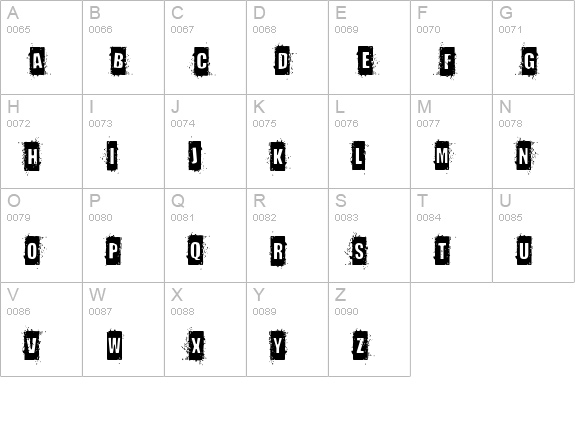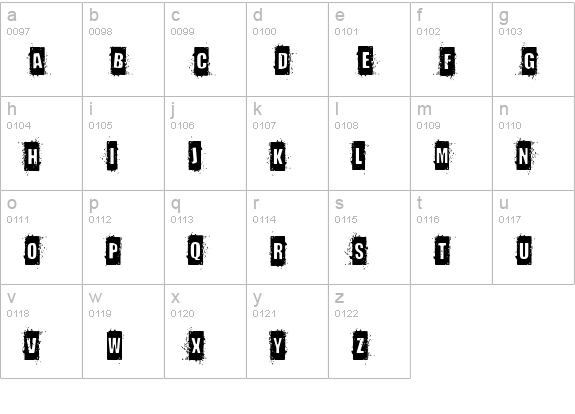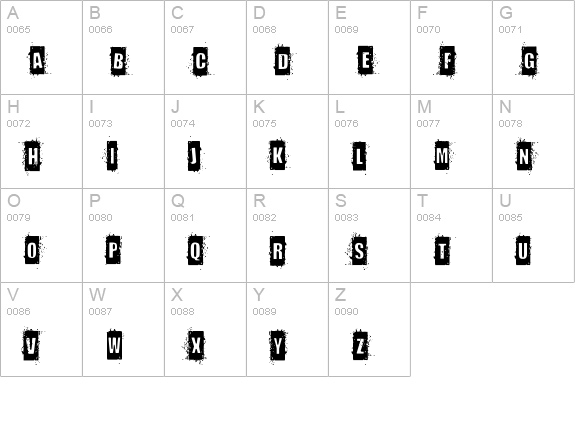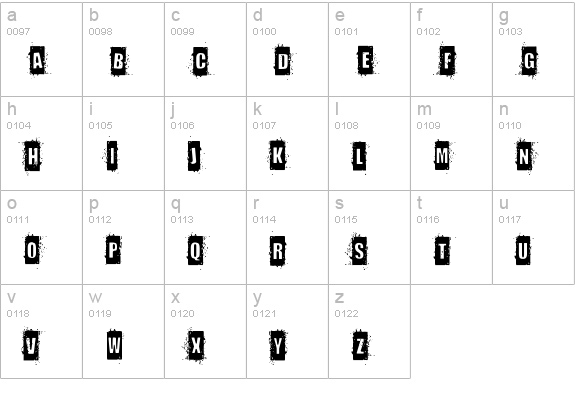
Distort You A Lesson Font Details
Distort You A Lesson font is a unique and eye-catching typeface that will add a touch of creativity to your designs. With its distorted and edgy look, this font is perfect for making a statement or adding a modern twist to your projects. The irregular shapes and uneven lines give Distort You A Lesson font a playful and dynamic appearance that is sure to grab attention. What's even better is that this font is available for free at FontsMarket.com! You can easily download and use it in your personal or commercial projects without any cost. Whether you're working on posters, social media graphics, branding materials, or any other design project, Distort You A Lesson font will help you stand out and make a lasting impression. Don't miss out on this fantastic opportunity to enhance your designs with this one-of-a-kind font - download it for free today!